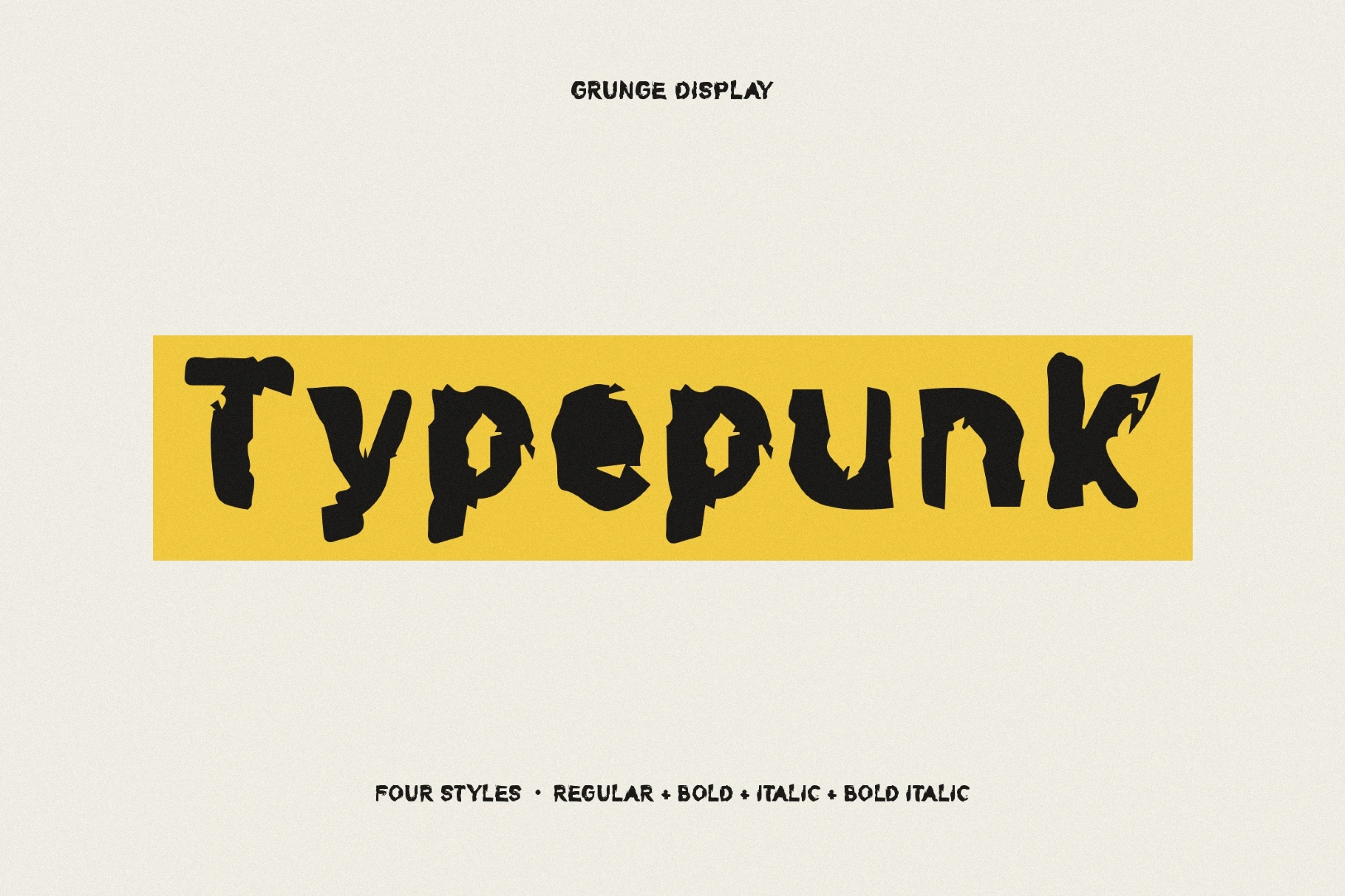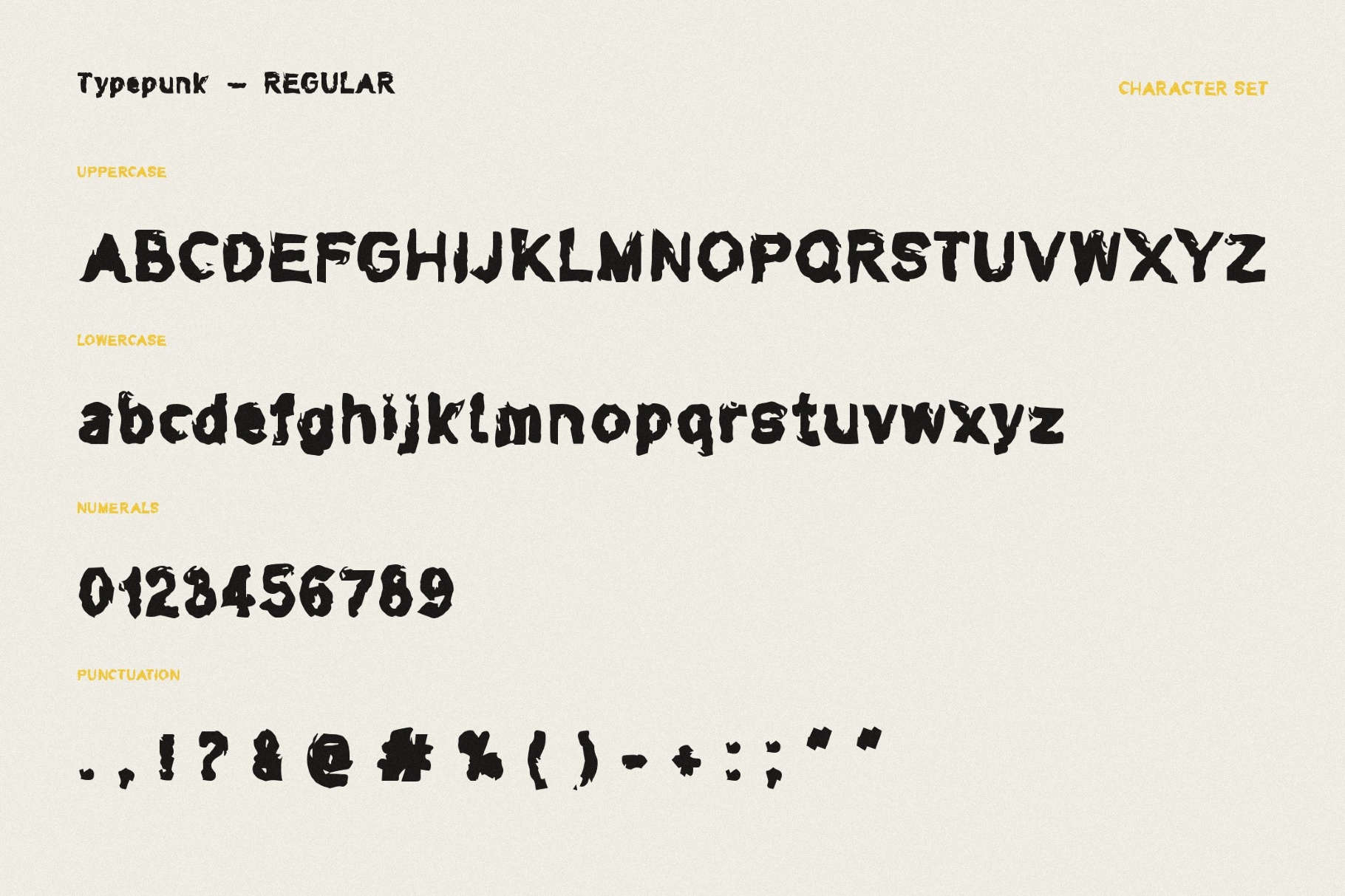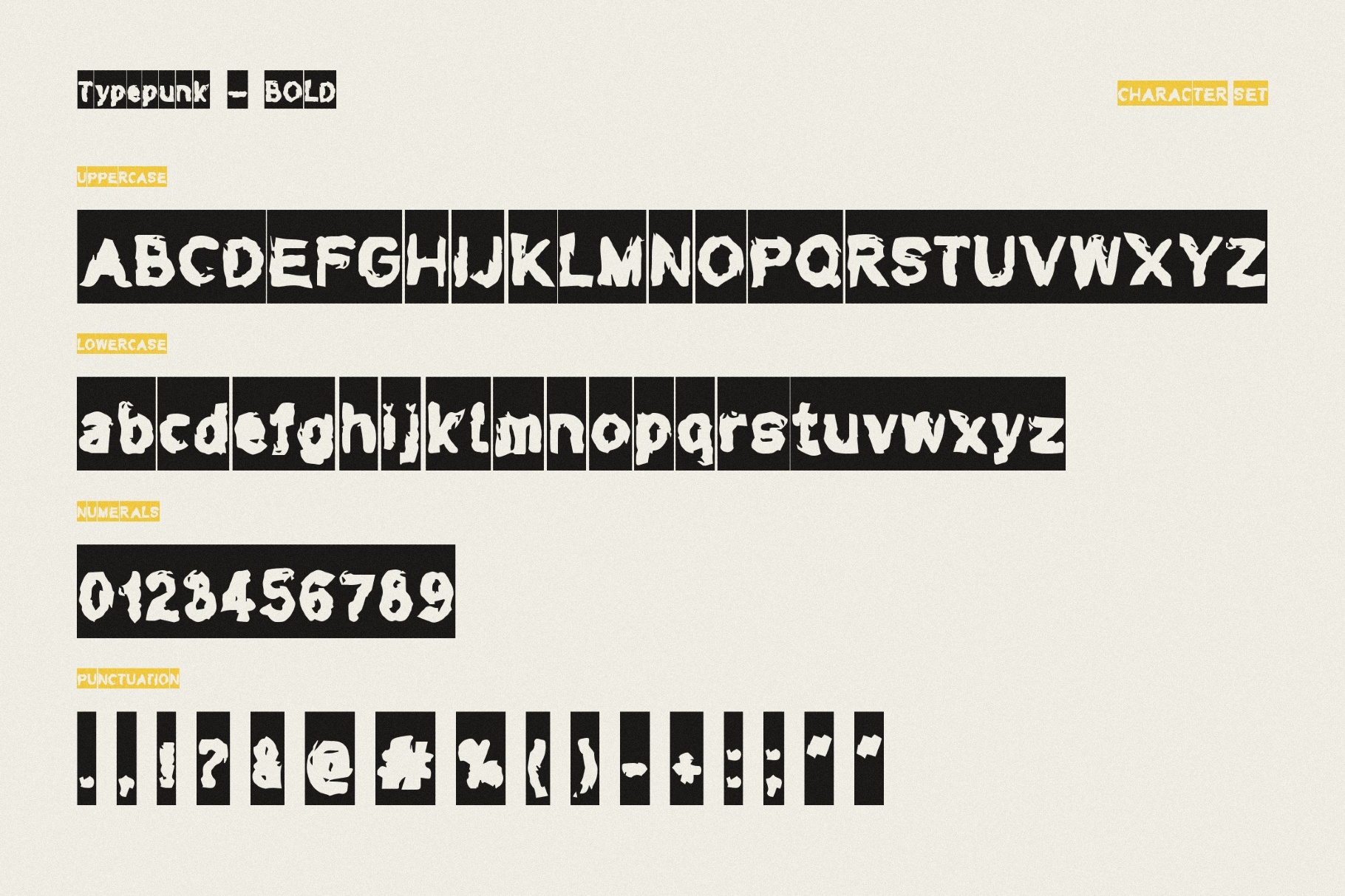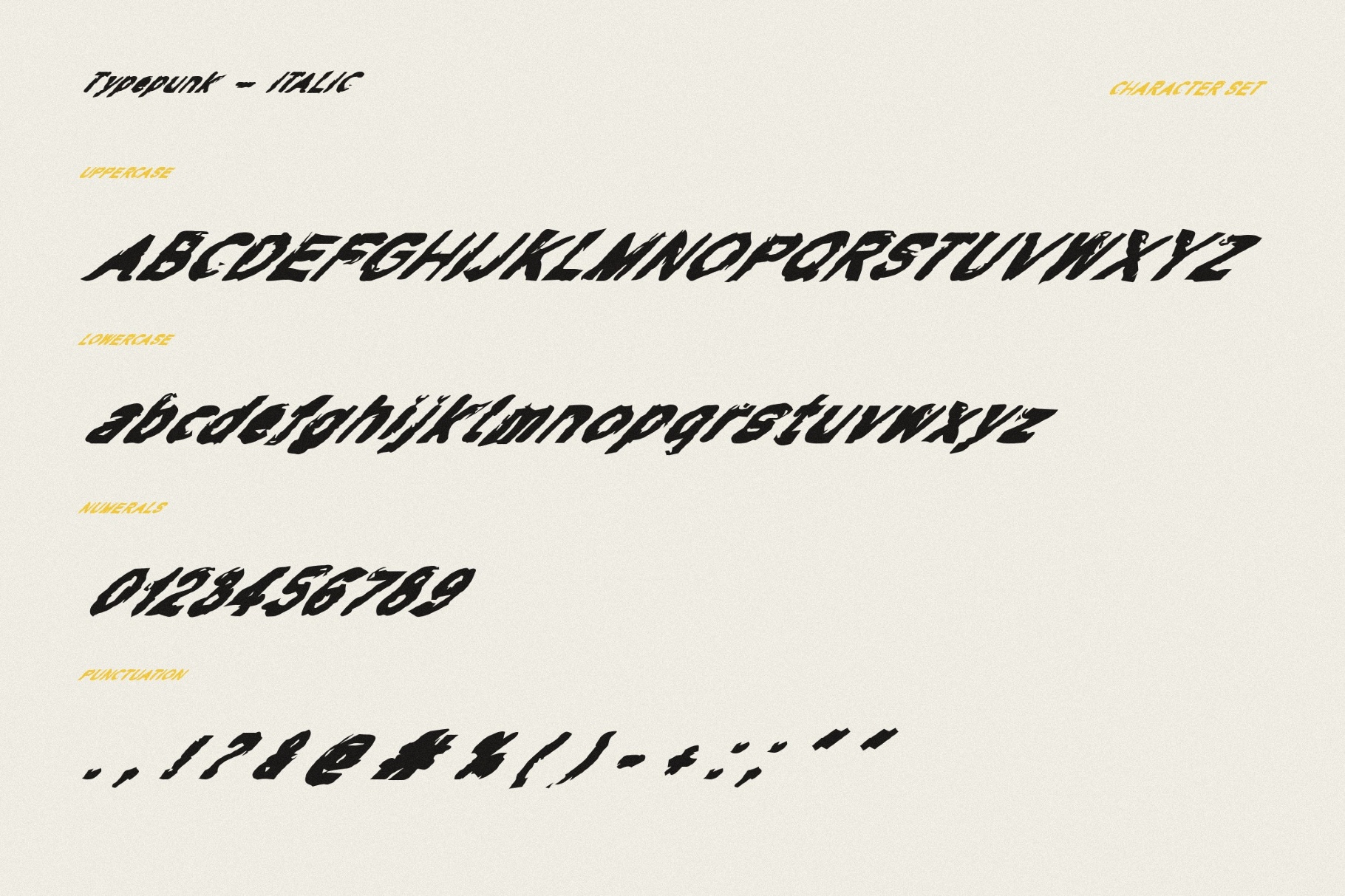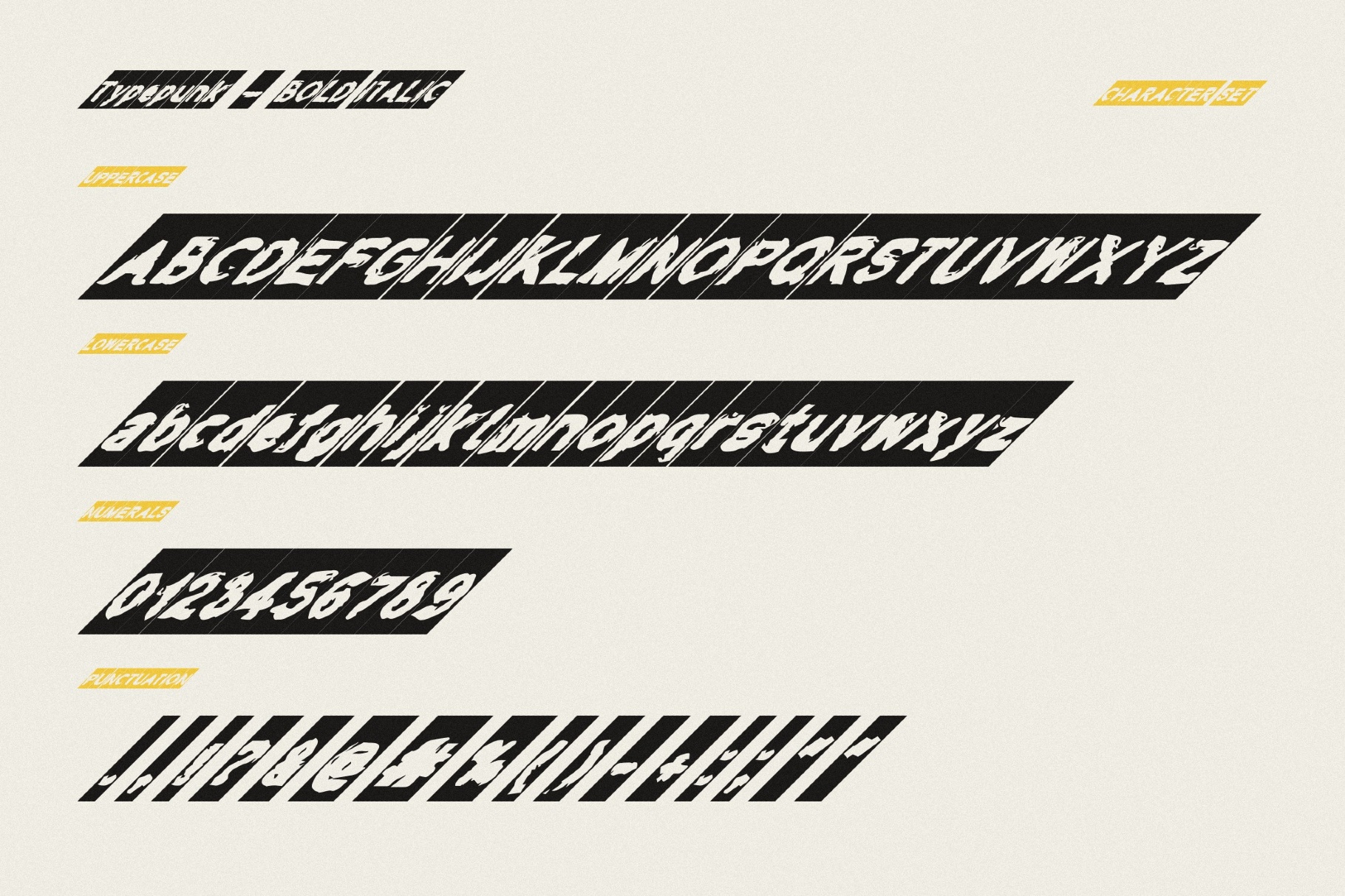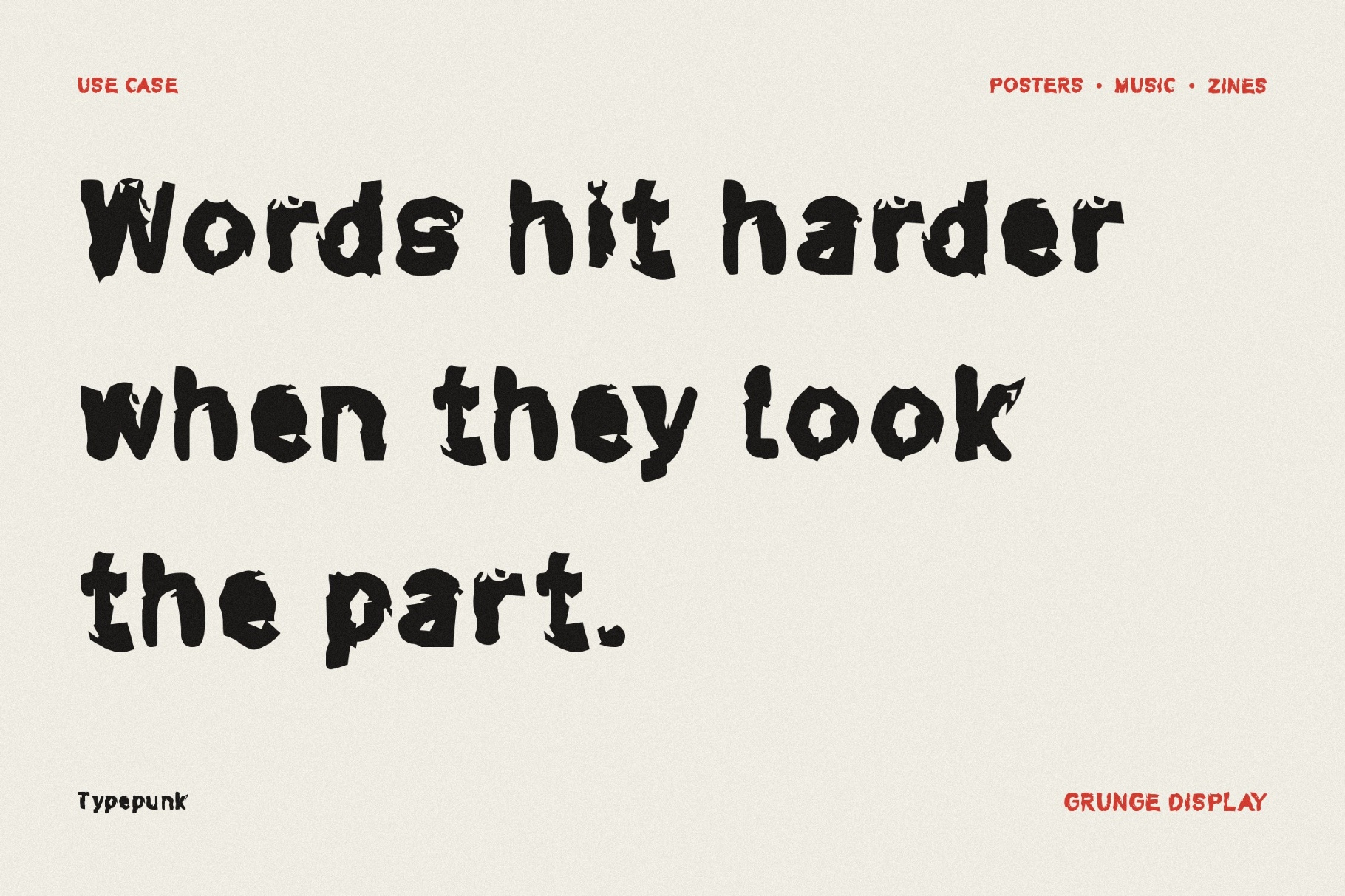
Typepunk Urban Font
Typepunk
Typepunk's rough display forms look pieced together from punk flyers, graffiti tags, and DIY record sleeves. Jagged edges, uneven scale, and messy urban energy give it a raw visual punch, as if the letters were pasted onto a wall overnight before anyone could approve them.
Usage: gig posters, streetwear graphics, skate branding, magazine covers, protest art, club visuals, and social media drops.